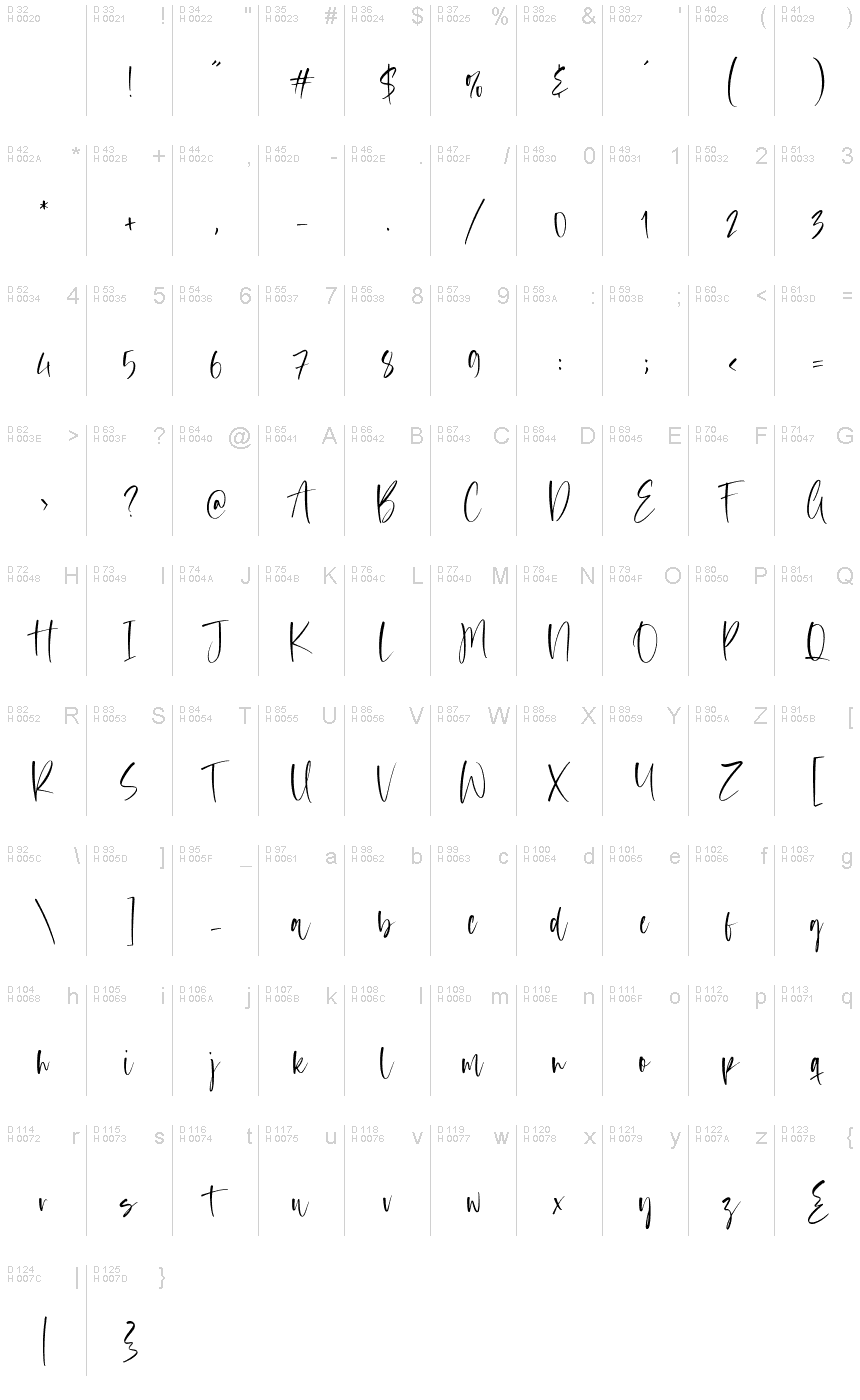
Obelisk Stone
Obelisk Stone, a delightful handwritten font by Balpirick Studio, exudes a charming and approachable aesthetic. With its semi-light weight, it strikes the perfect balance between elegance and readability.
This versatile font is ideal for various projects, including wedding invitations that call for a touch of whimsy or children's book covers that demand an enchanting vibe. Its fluid strokes and unique character make it equally suitable for crafting captivating logos or designing captivating social media graphics.
Elevate your designs with Obelisk Stone and infuse them with an irresistible charm.